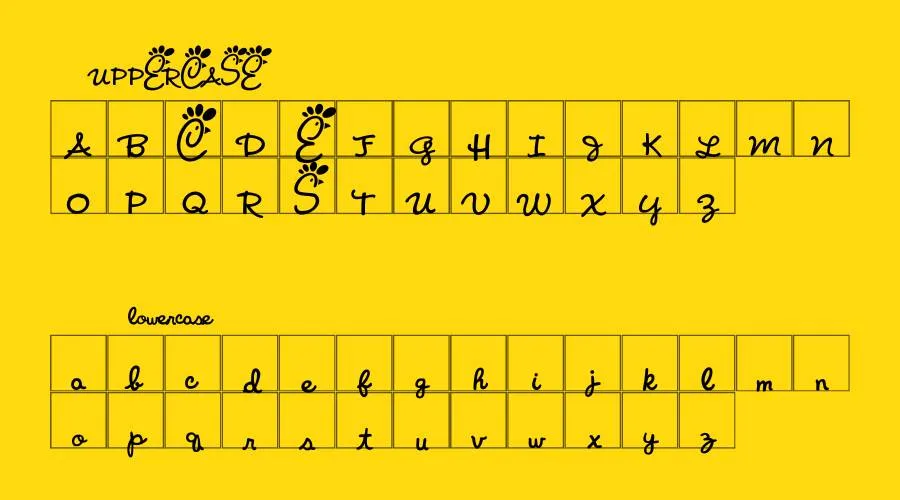
Chick Fil A Font
About Chick Fil A Font
The Chick fil A Font is a stylish and trendy Brush texture family. The "Chicken hut" is the typeface's name and is based on this unique font. It was developed by a famous graphic designer known as name of Dan P. Lyons. You may get it free from here and it contains different types of characters such as small letters, numeric, capital letters, and many others.
This font includes various weights and styles such as Regular, italic, and bold. The pairing quality of this typeface is amazing and can be paired with a claustrum font and create attractive projects. You can also utilize its copy-and-paste functions and create urgent designs.
After this outstanding typeface was published in the font world, this font gained popularity in a very short time because it has stylish and modern shapes, and many famous graphic designers utilize it for various purposes.